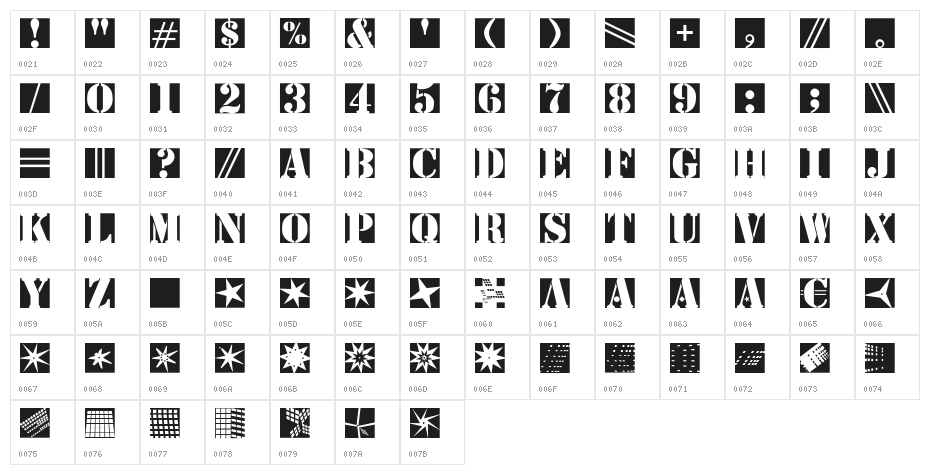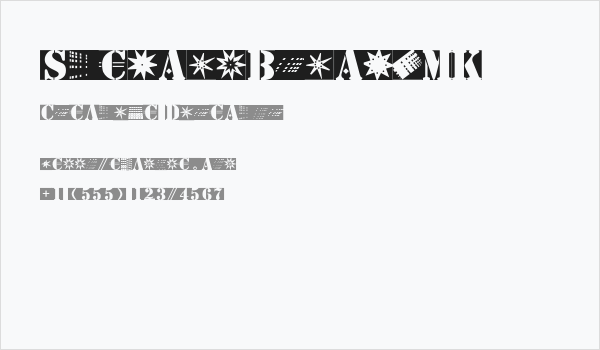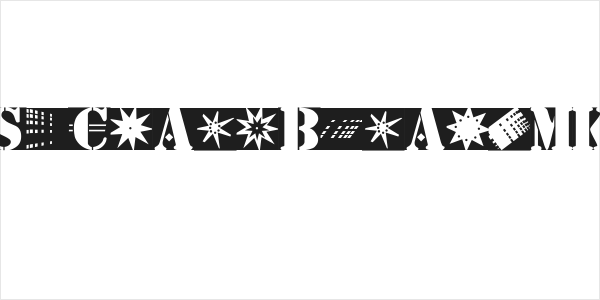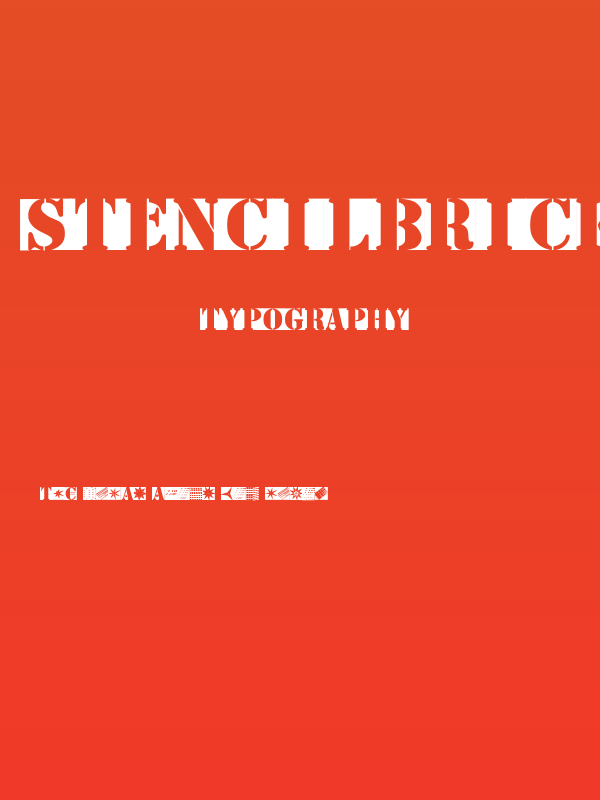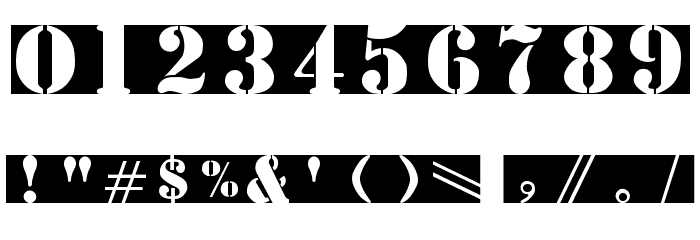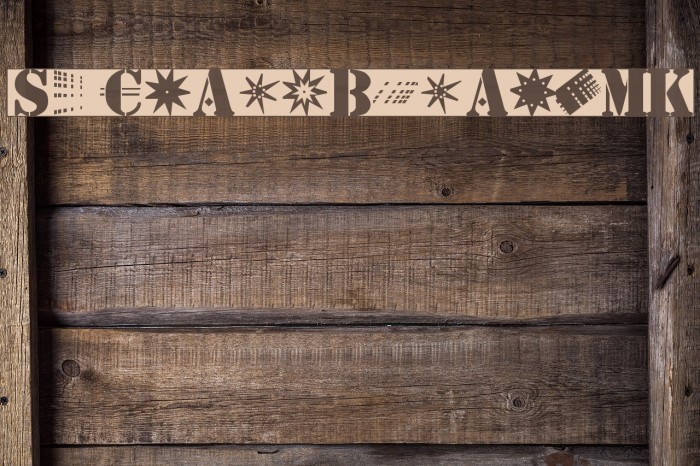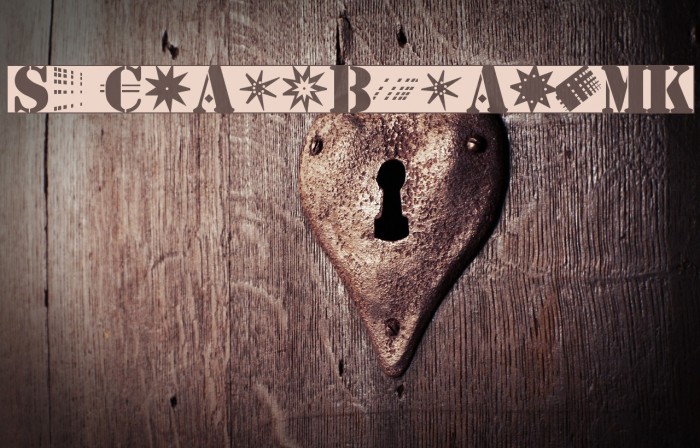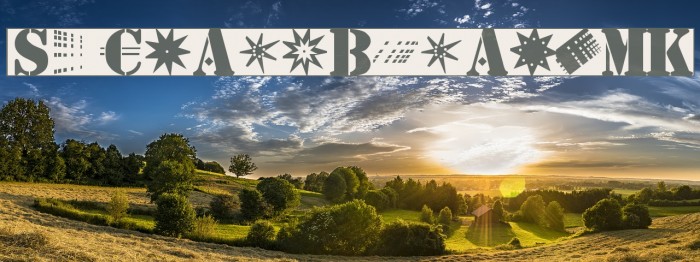
StencilBricksMK Font
StencilBricksMK Description
This font features a bold and striking stencil design, characterized by its geometric shapes and cut-out sections that create a sense of industrial and urban style. The uppercase letters are particularly prominent, with sharp angles and clean lines that make them stand out. The numbers and special characters maintain this aesthetic, offering a cohesive look across all glyphs. The font's unique style is reminiscent of street art or military stencils, making it ideal for projects that require a bold, eye-catching typeface. Its design is both modern and edgy, suitable for a variety of creative applications.
| Overall Style | Modern, Edgy |
| Proposed Projects | Ideal for street art designs, military-themed projects, posters, and branding that requires a bold statement. |